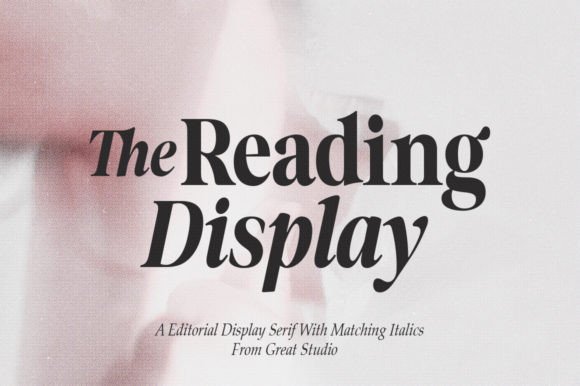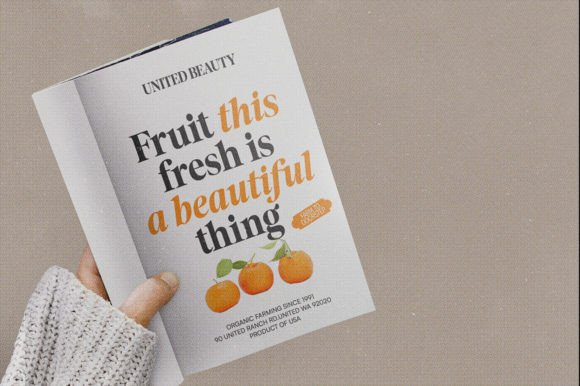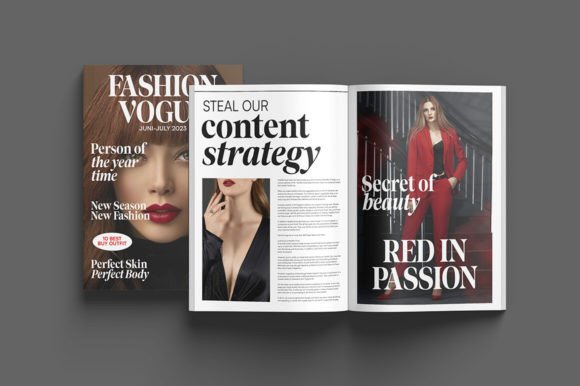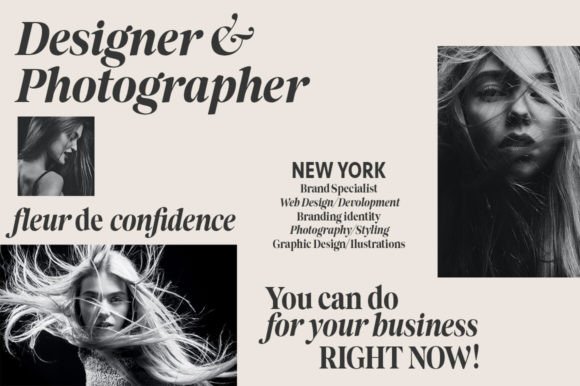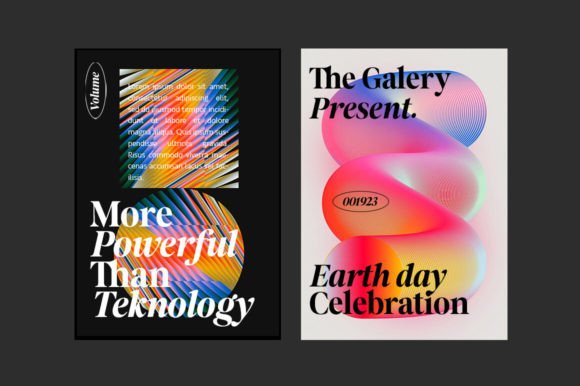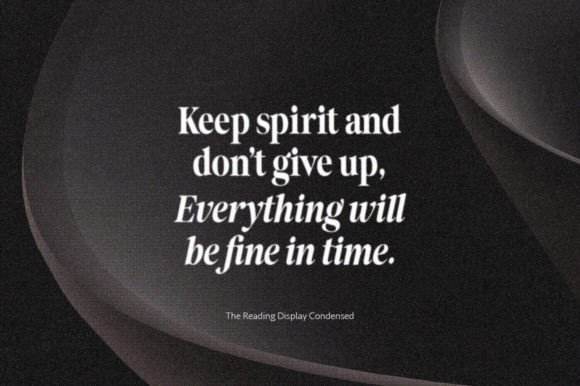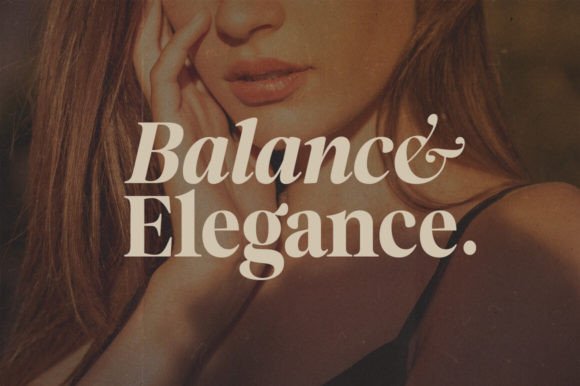
The Reading Display Font
The Reading Display is a new editorial serif with clean and soft lines, tight curves, and a trendy elegant look.
The Reading Display has two versions of the font, namely Regular Serif & Condensed Serif which are equipped with an italic version style, very suitable for your design needs such as very suitable for creating nostalgic designs but still clean and elegant such as headlines, magazines, logos, packaging, editorial, and so on. much more.